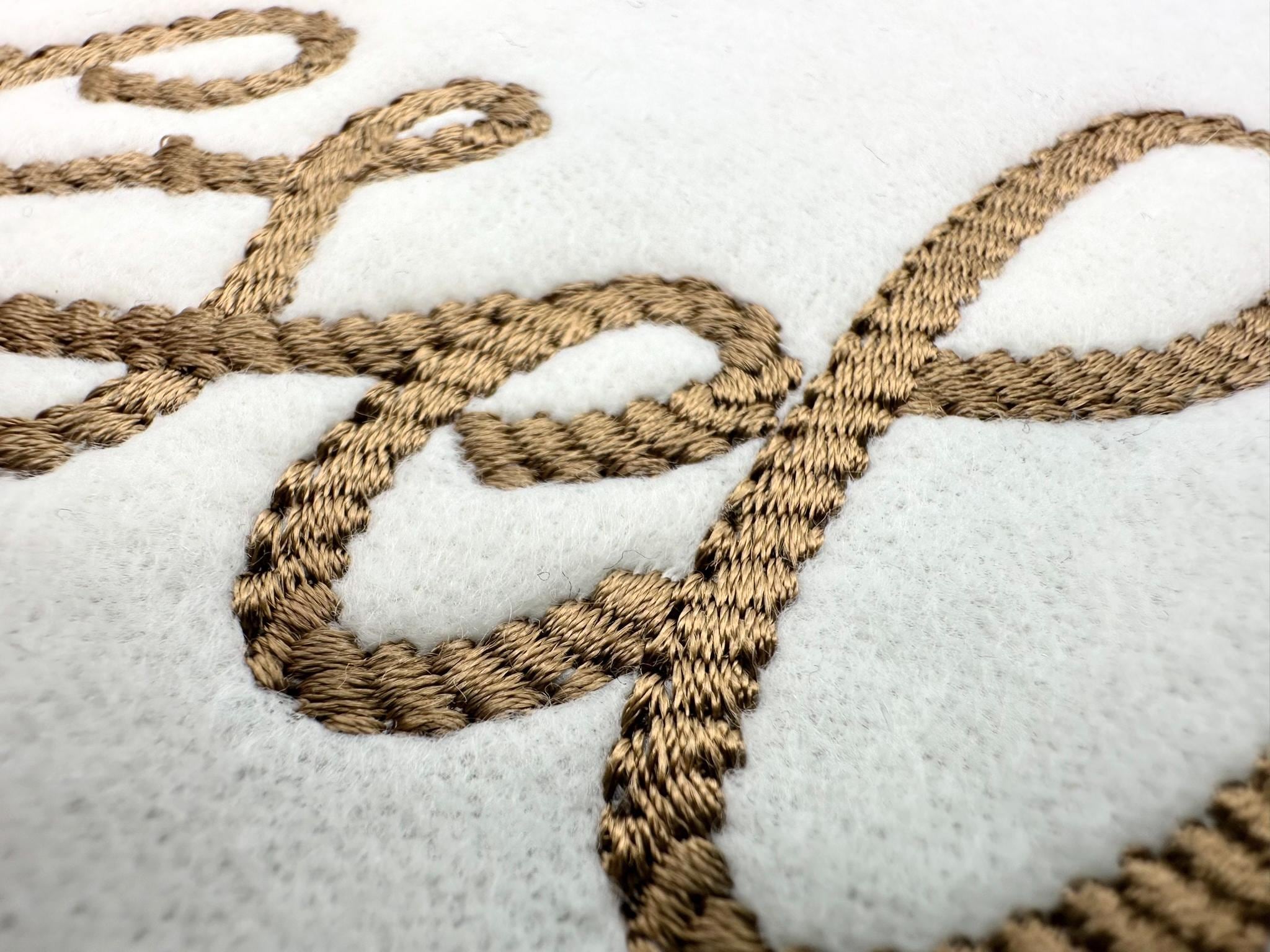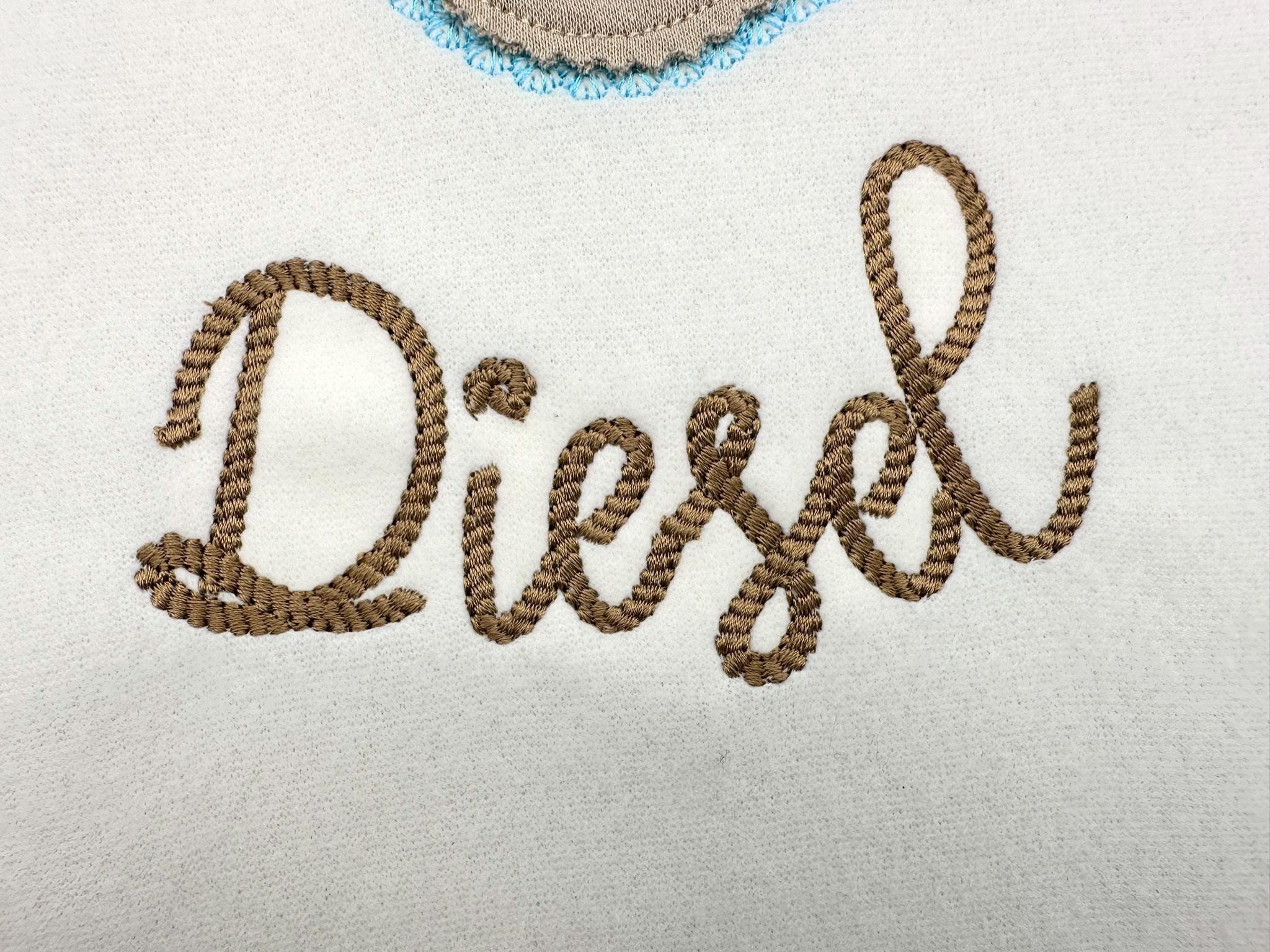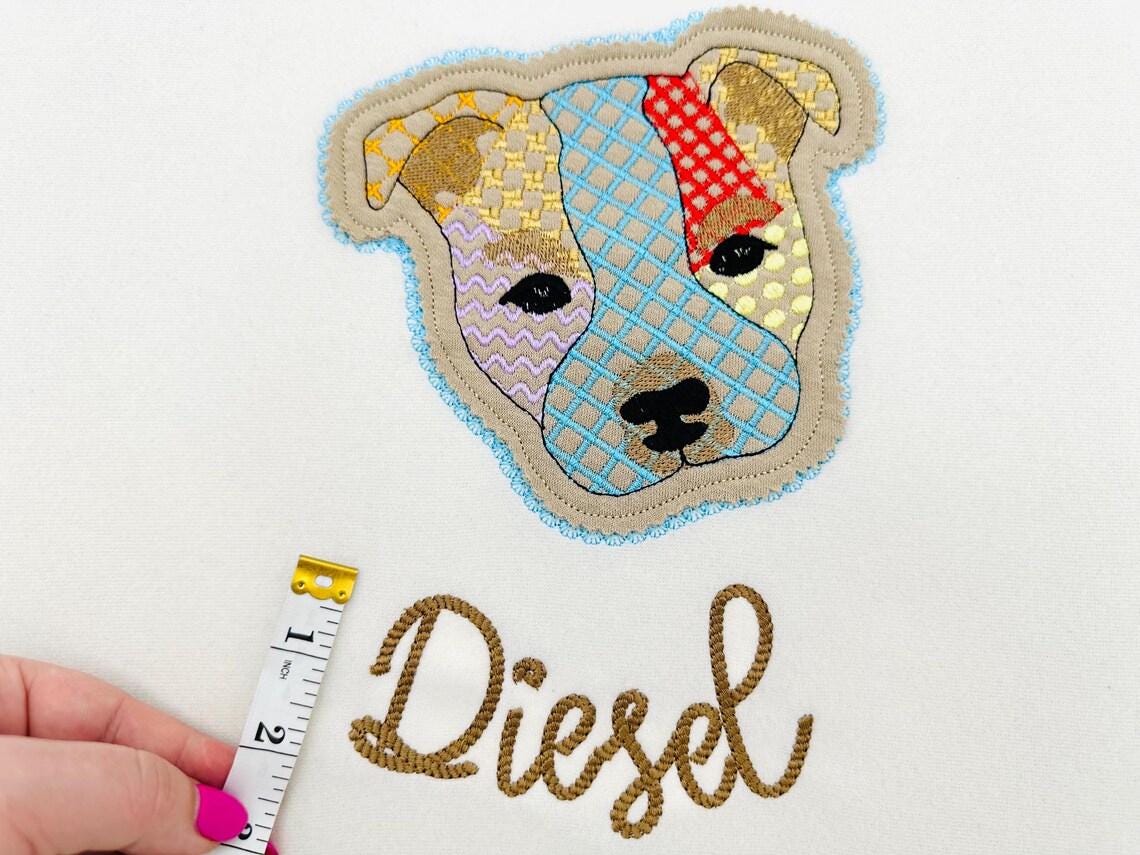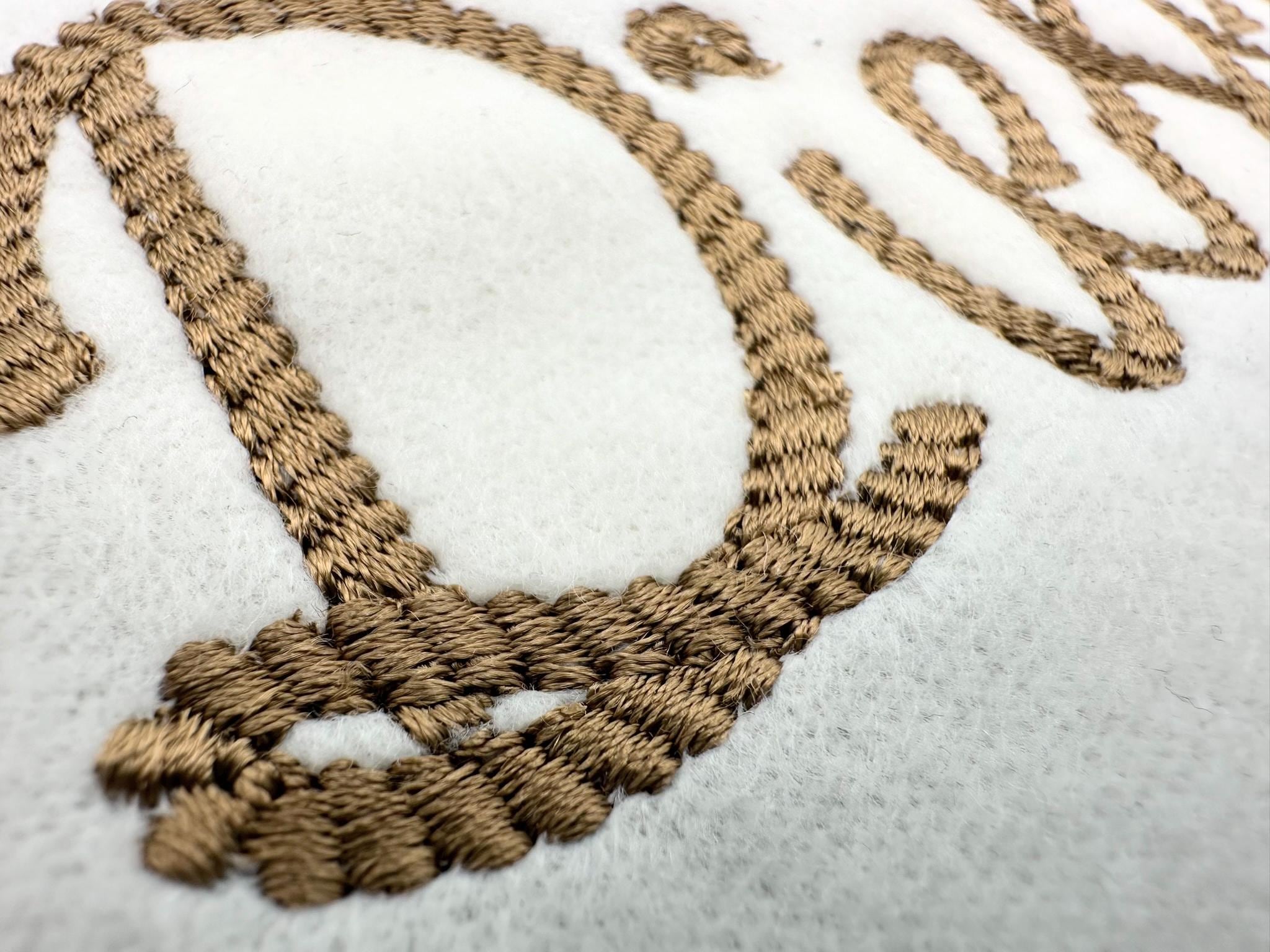
Rope stitch FONT machine embroidery designs in assorted mini sizes alphabet letters playful name monogram girl cowgirl rope lasso BX
Cute font. Easy to stitch